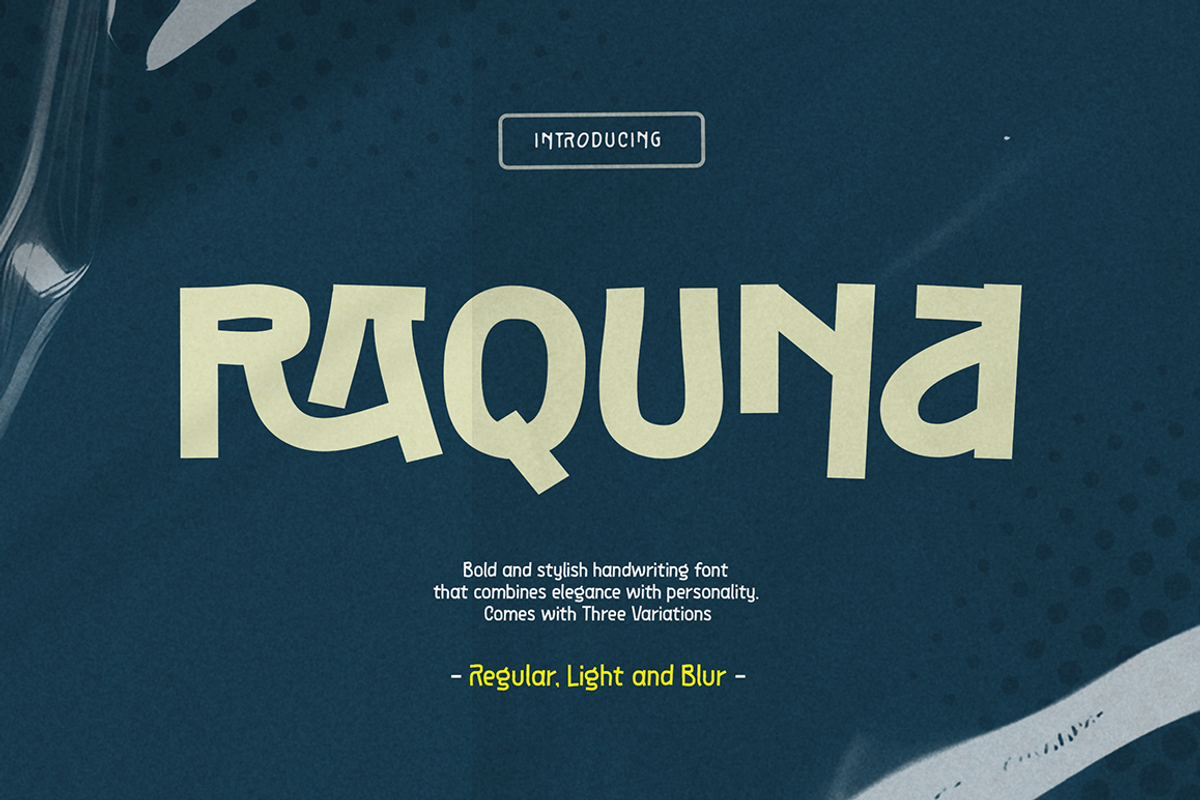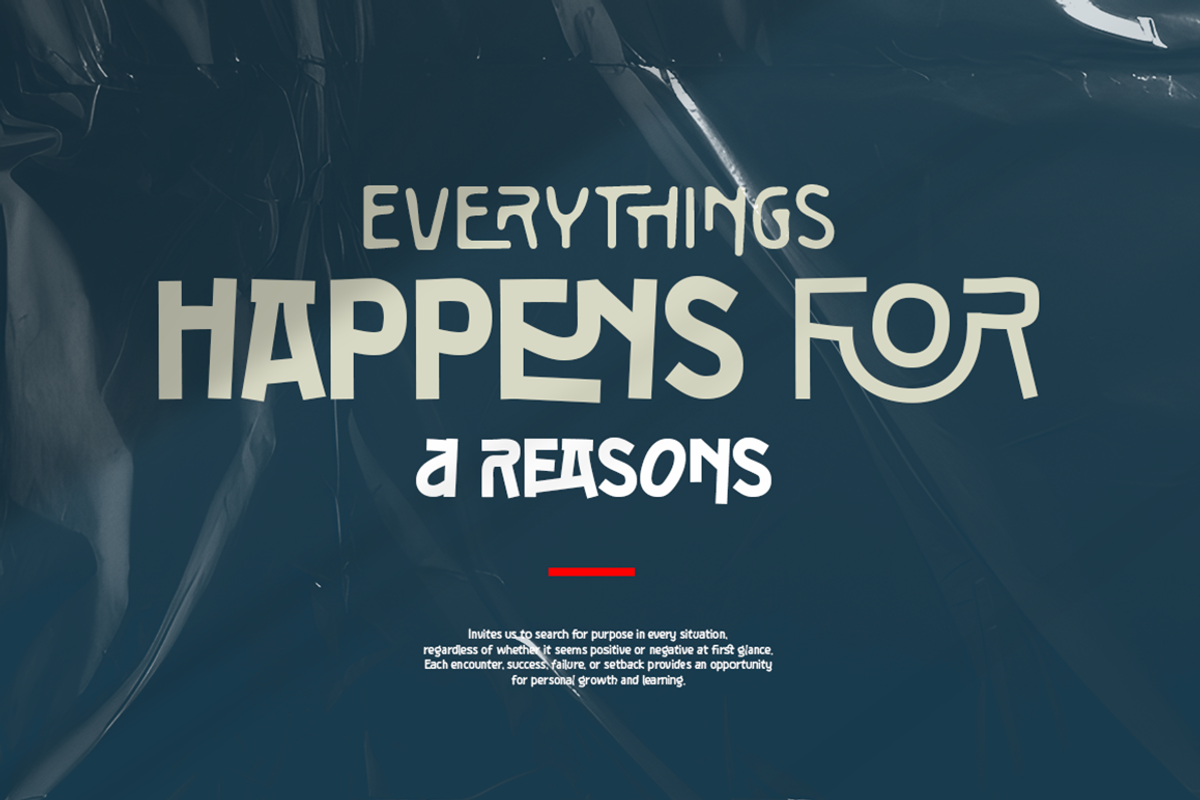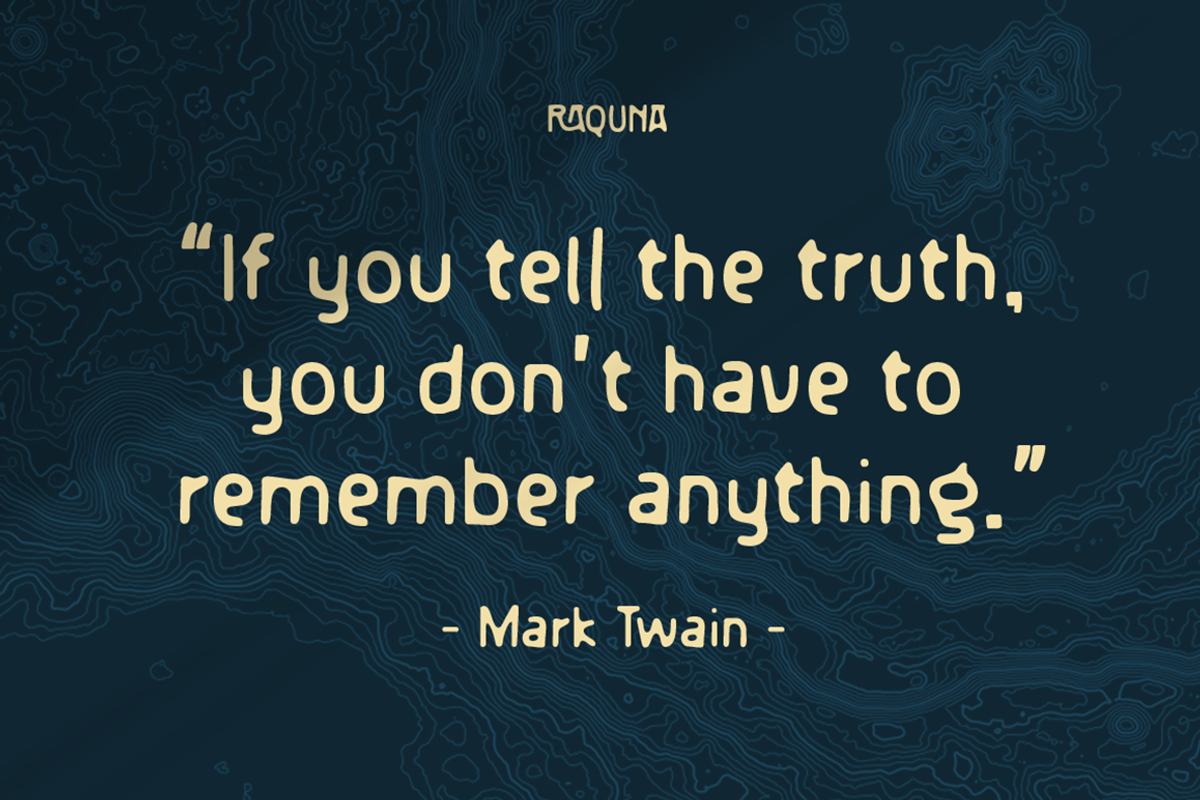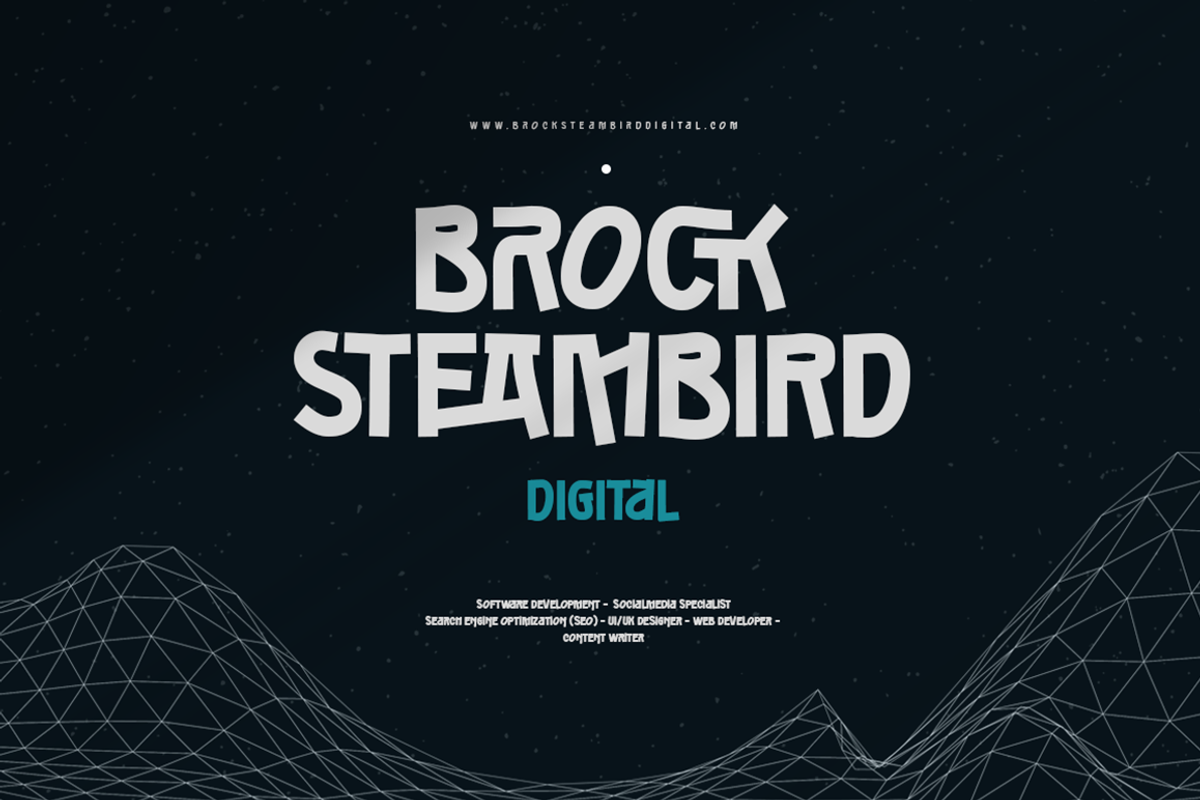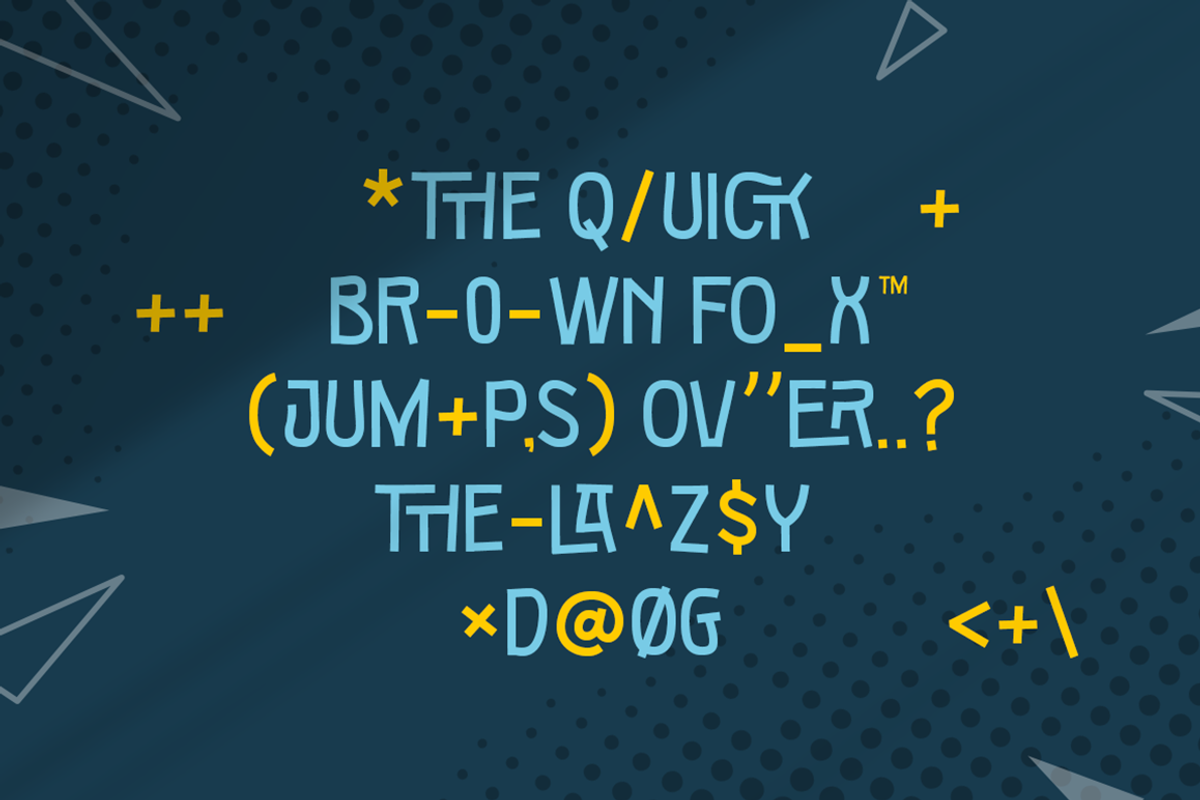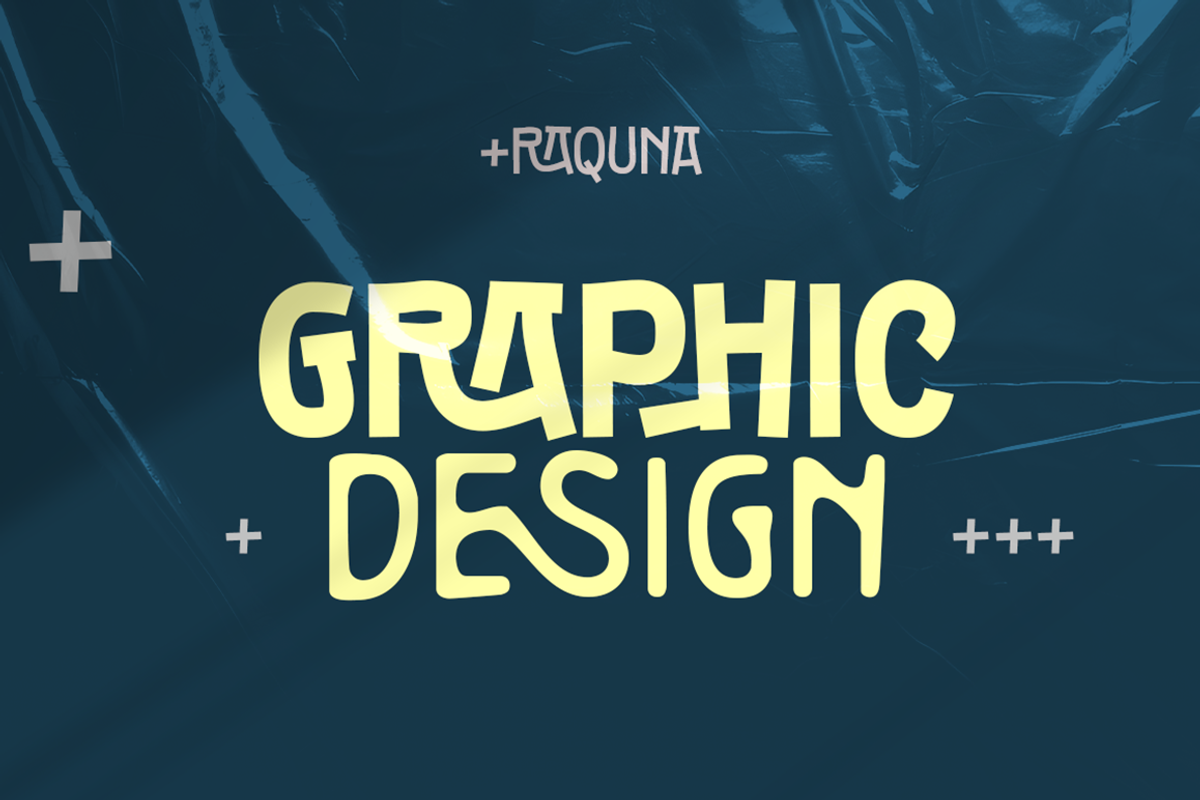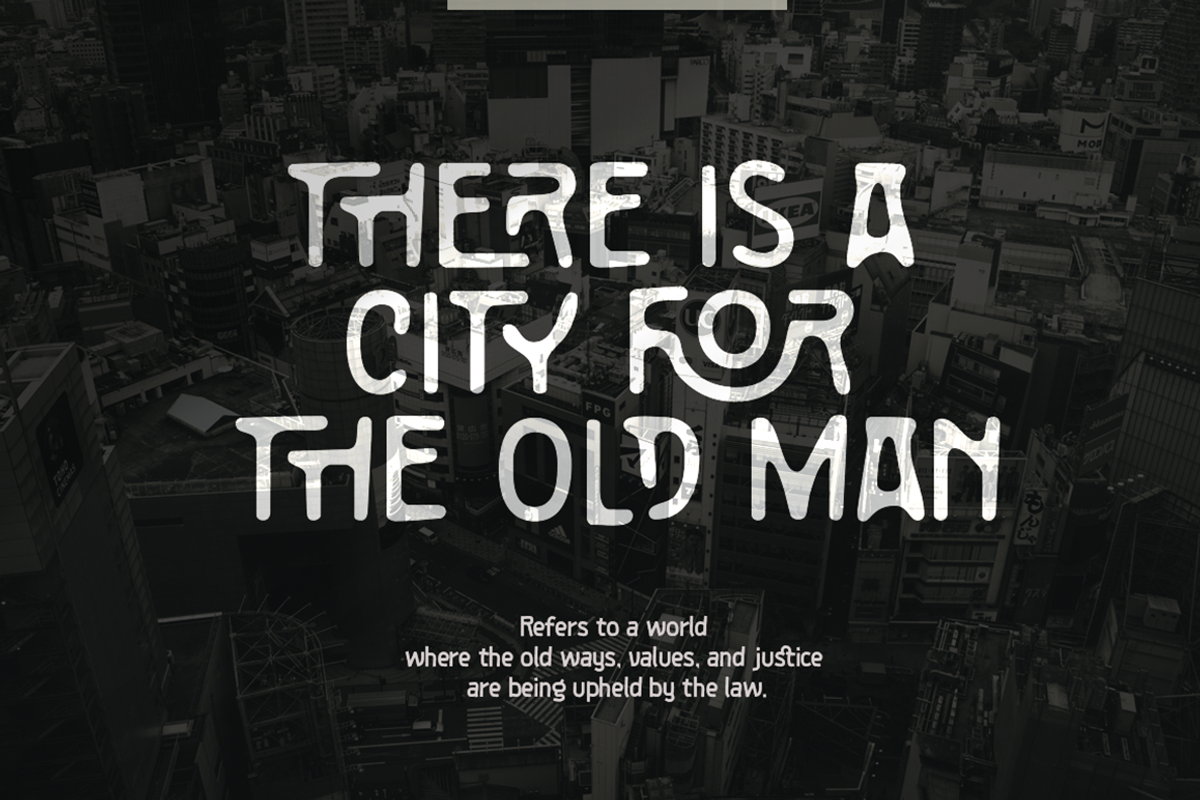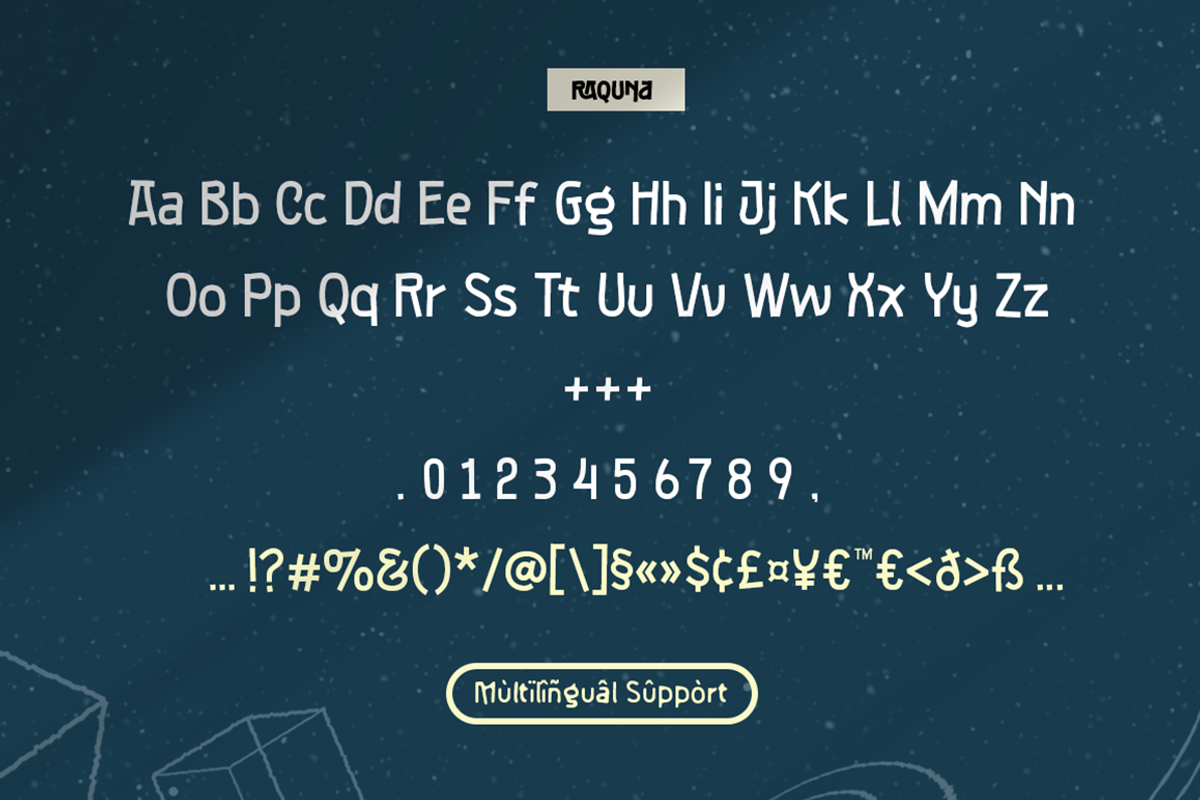
Raquna Font
Raquna is a bold handwriting font that blends expressive style with modern elegance. Designed to stand out while maintaining a touch of sophistication, Raquna is perfect for branding, invitations, social media graphics, and other creative projects that call for a personal yet polished feel.
This font includes three unique variations:
Regular – Bold and confident with sharp edges, this version delivers strong visual impact and clarity. Light – A softer, more refined version that brings a delicate, graceful touch to your typography. Blur – A dreamy, smooth variation with a blurred effect, ideal for artistic or layered compositions.
With its versatile design and stylish personality, Raquna adds charm and character to any text it touches.